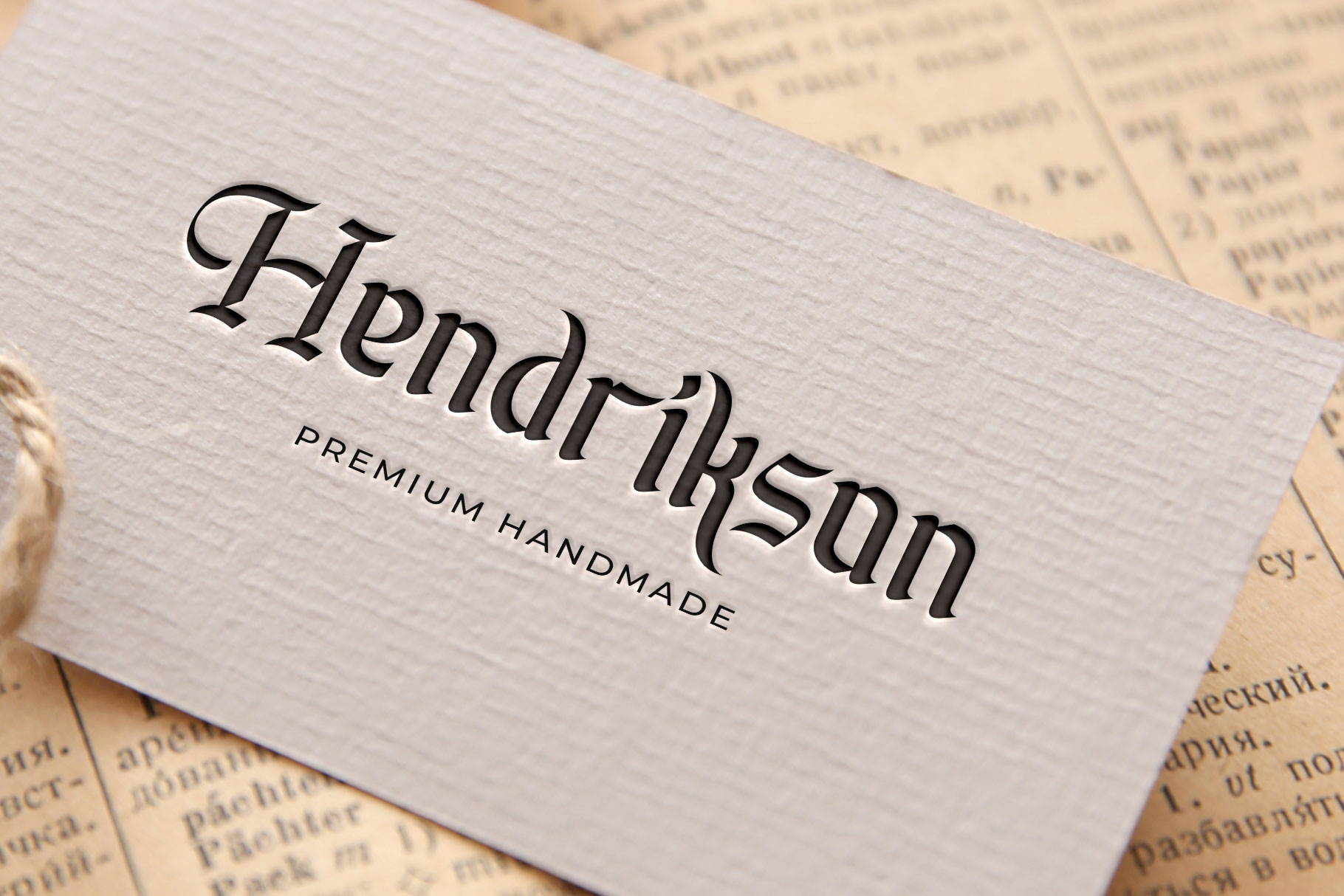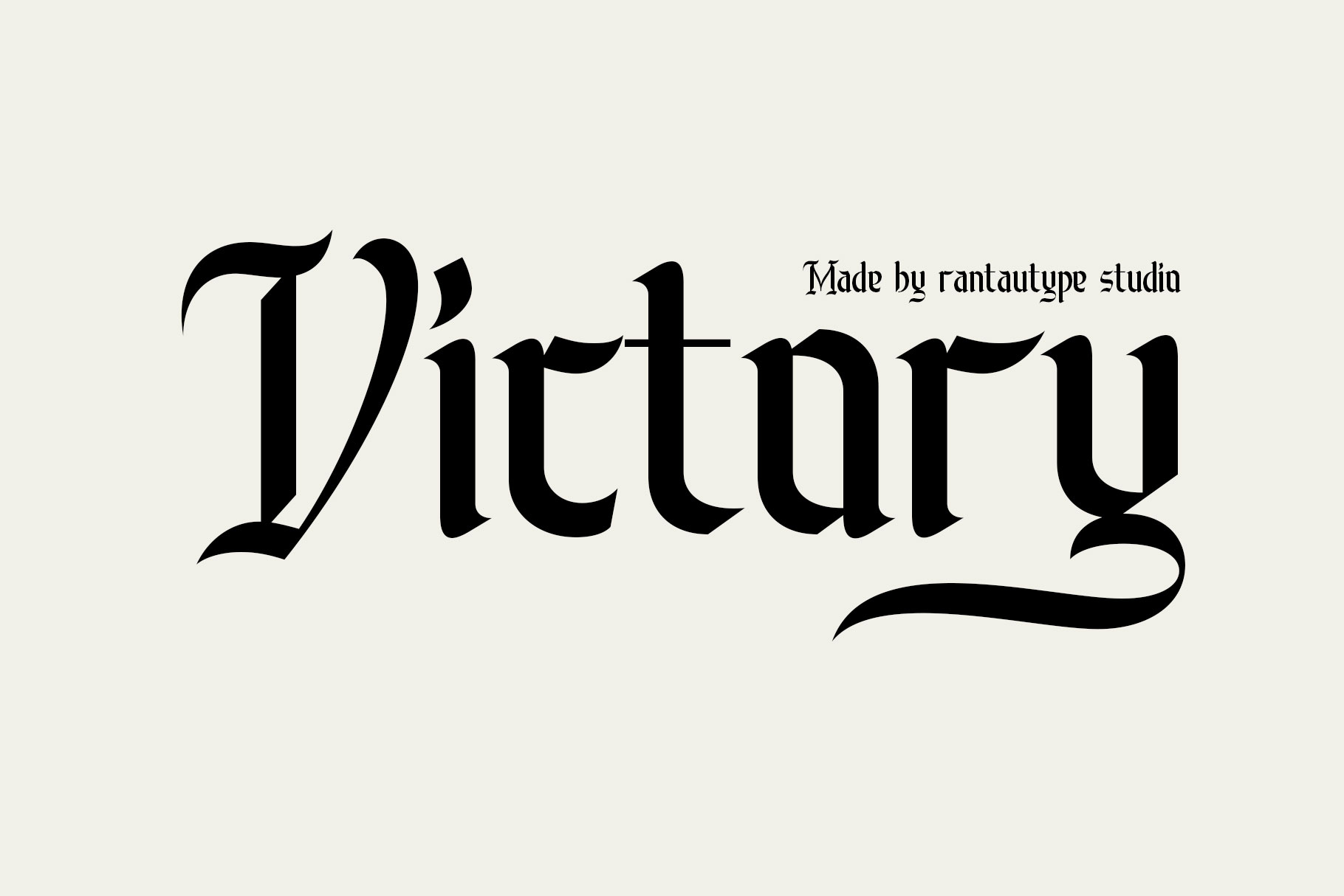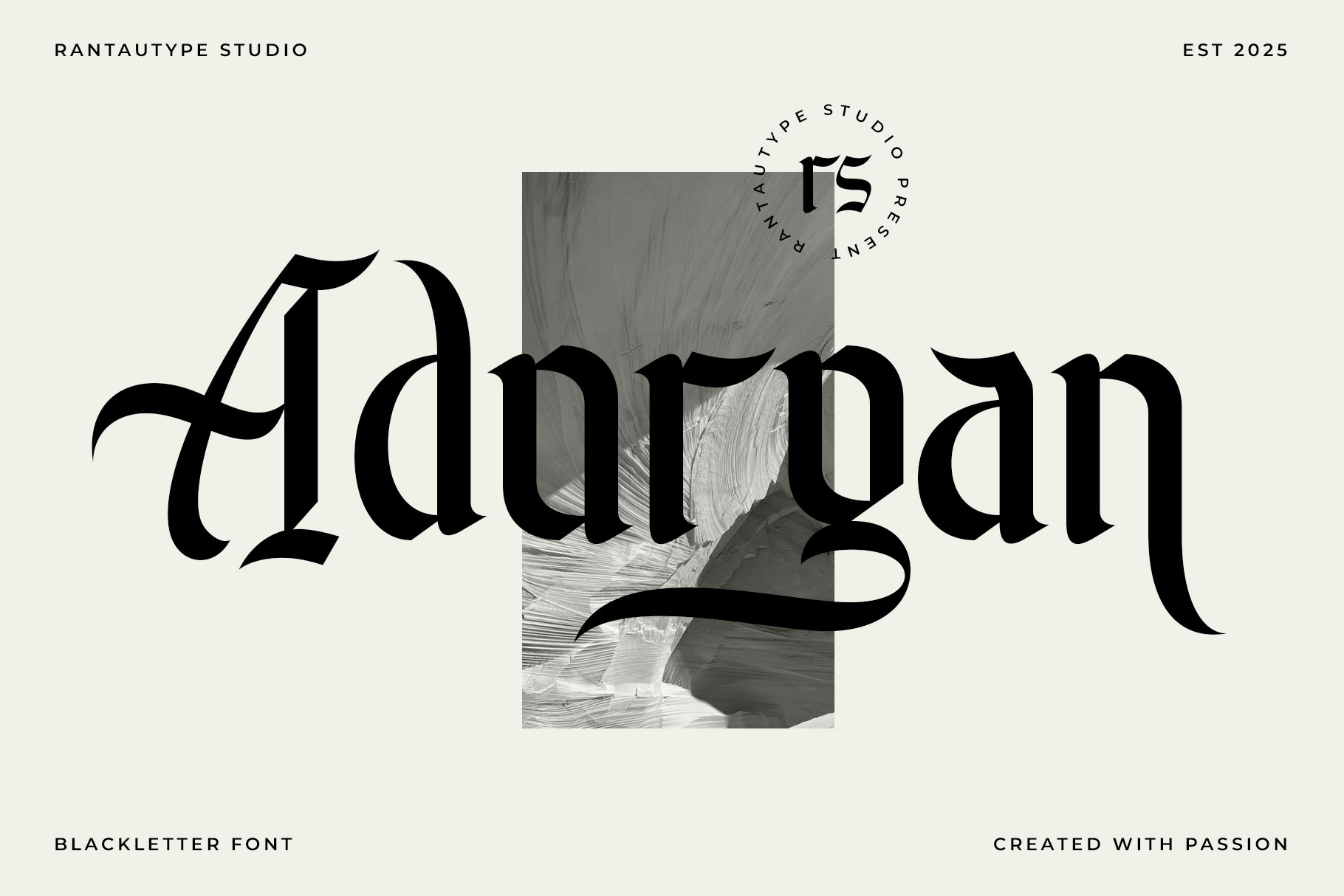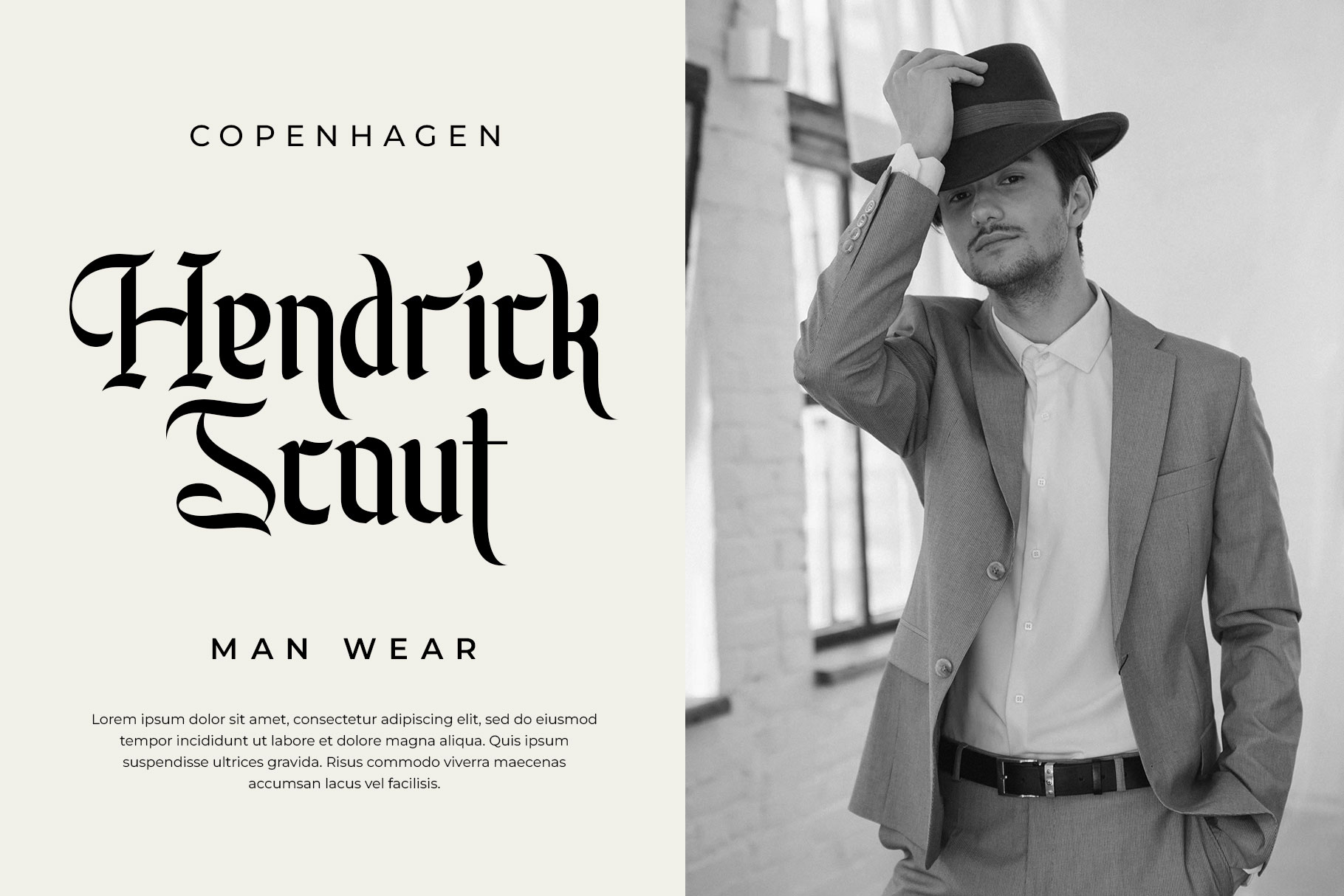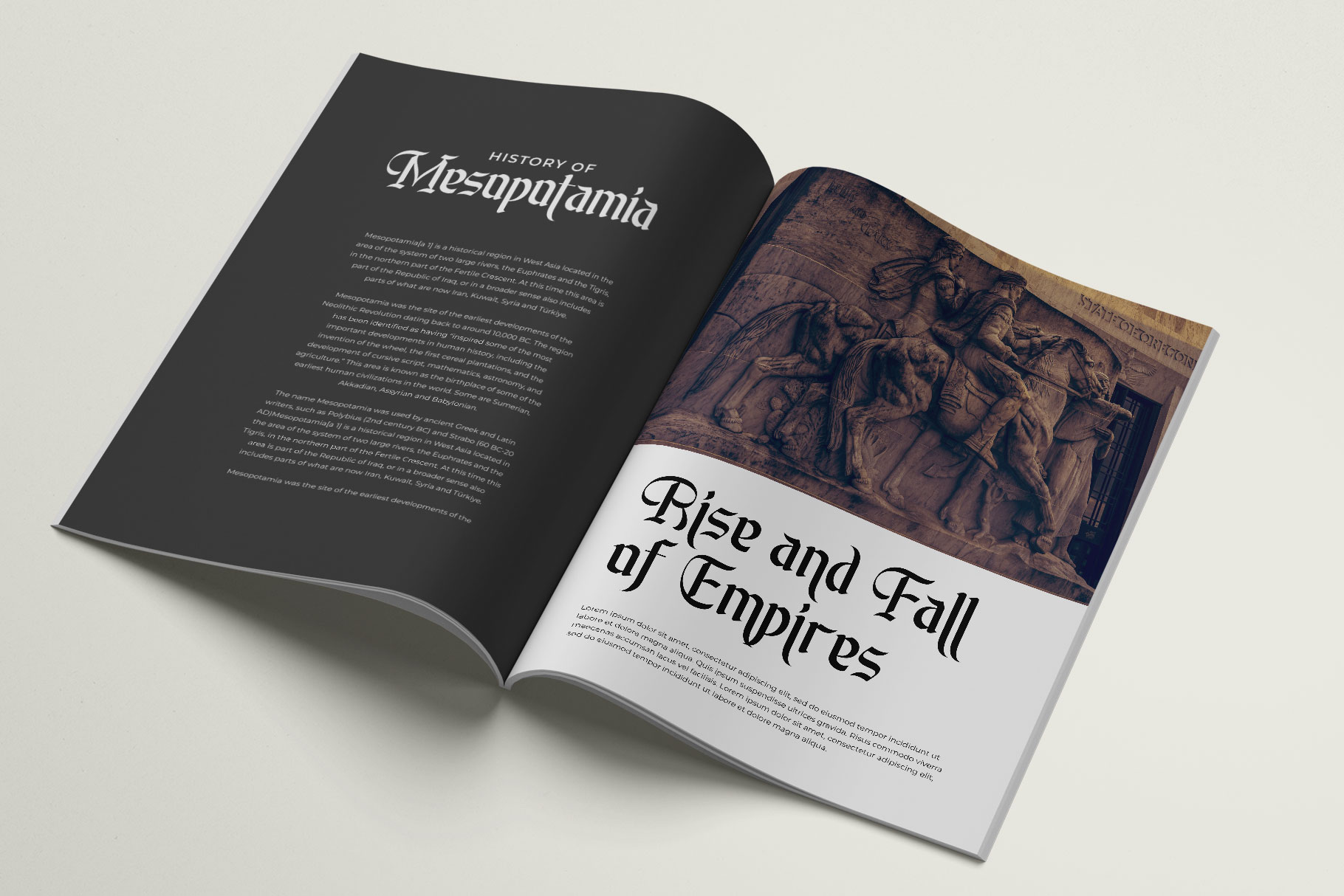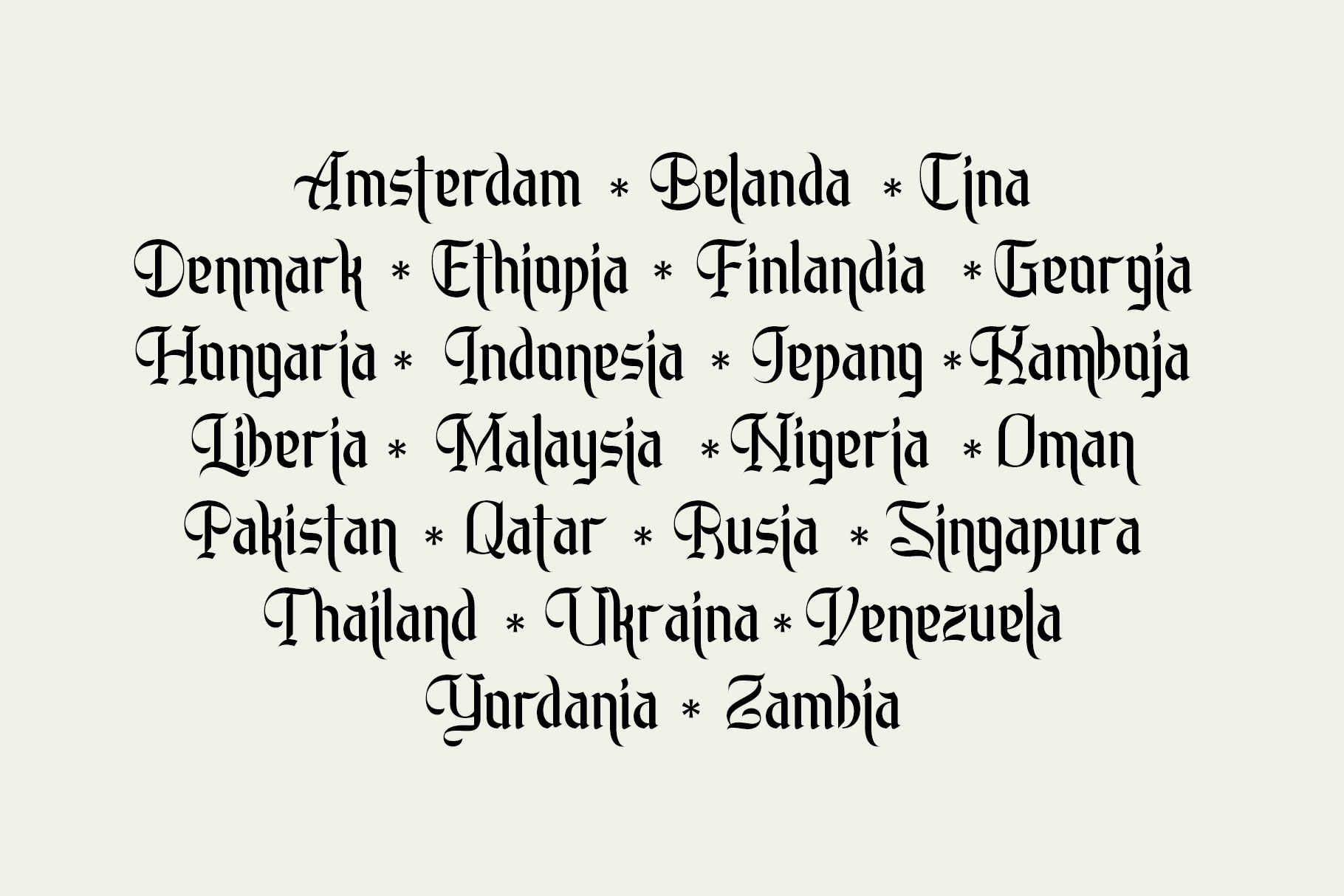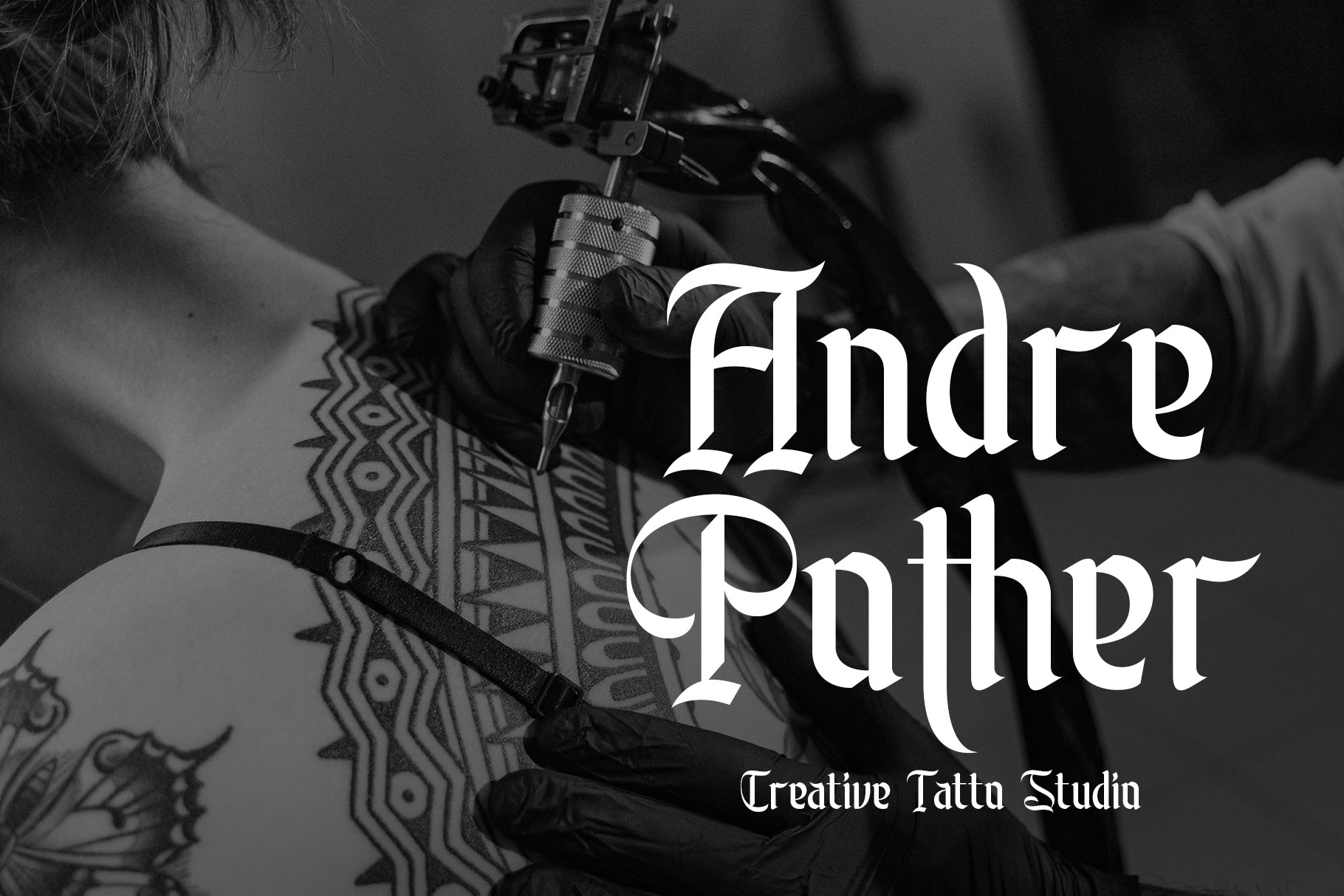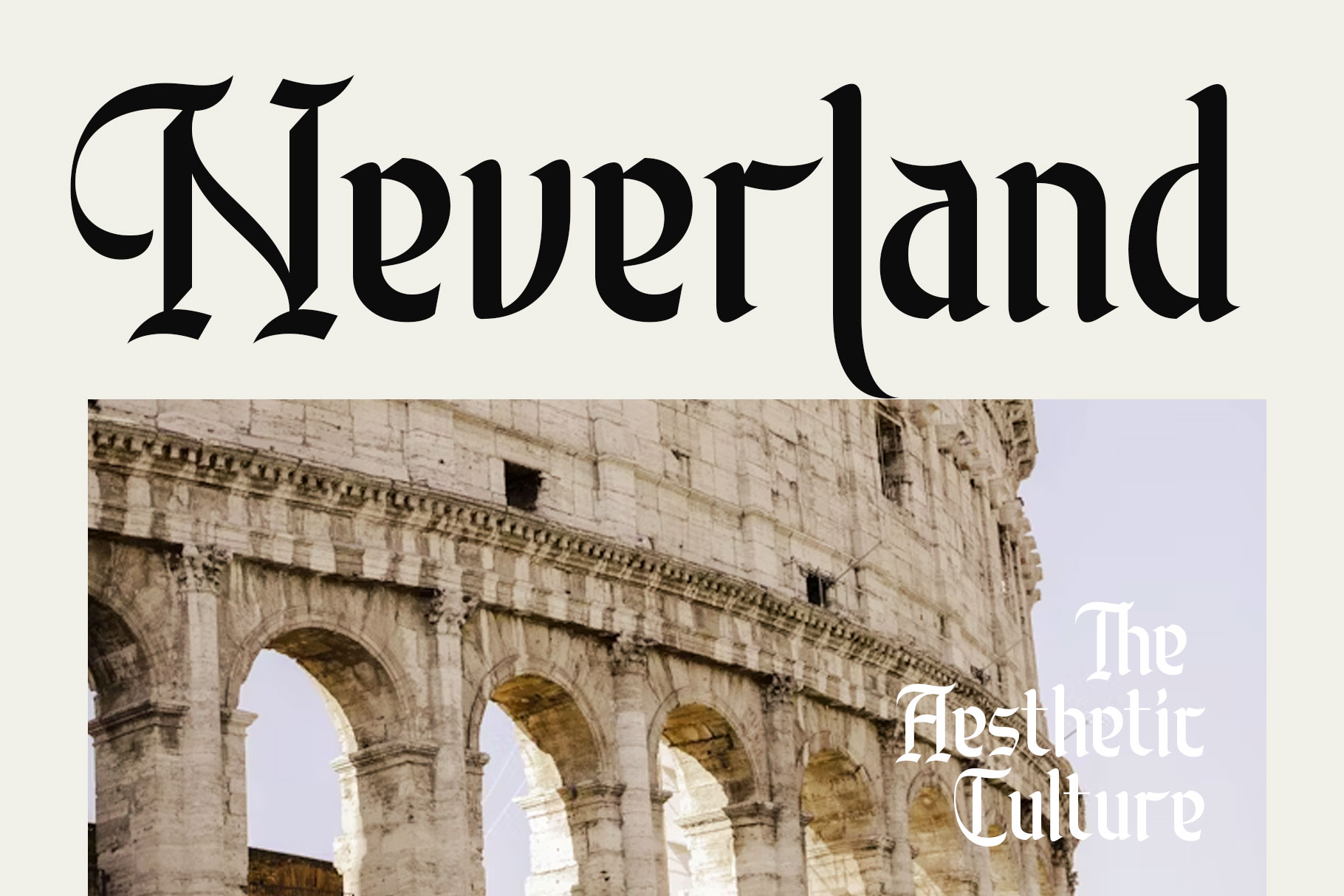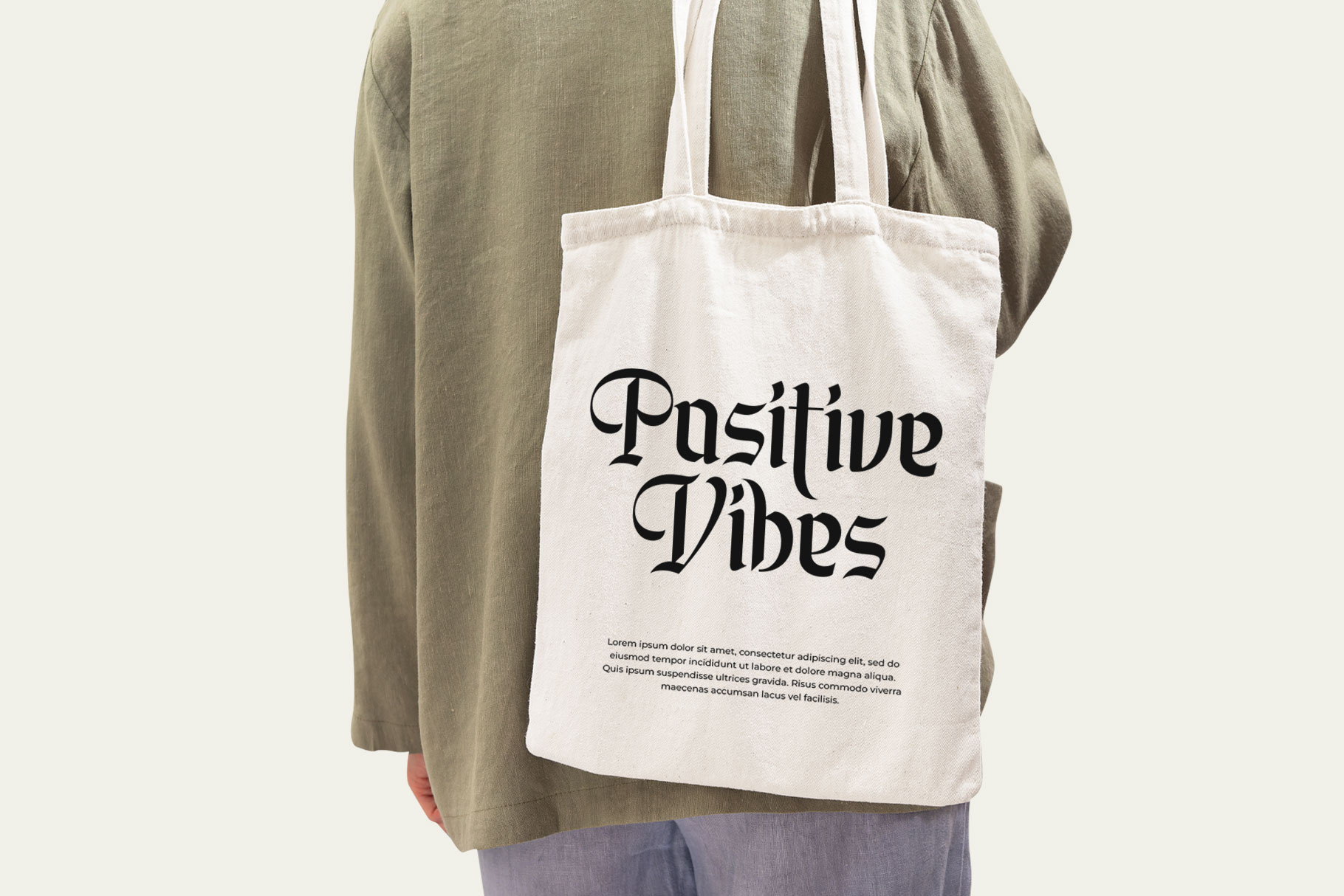
Adorgan Blackletter Display Font
Adorgan is blackletter font with hight contract shape. Adorgan is a perfectly choice for any creative endeavor, lifestyle design such as logotype, advertisements, watermark on photography, stationery, branding project, display and magazine, invitation, corporate brand, product design, label, business project and many other project with medievel touch.